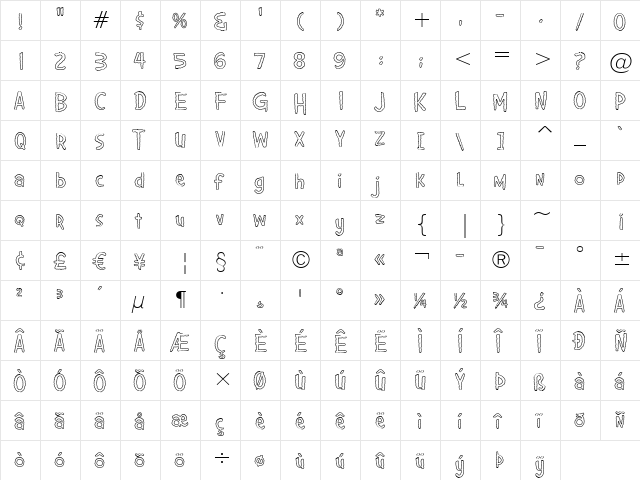
Giggles Wiggles BTN Outline Regular
Design Context for Giggles Wiggles BTN Outline Typeface
Giggles Wiggles BTN Outline is built around its visual character rather than neutral utility — its distinctive forms are designed to make an impression at display sizes.
Font Pairing: Pair with a clean neutral sans-serif for body copy to let Giggles Wiggles BTN Outline's character lead without overwhelming the composition.
Pro Tip: Treat Giggles Wiggles BTN Outline as the centrepiece of your typographic hierarchy. One strong heading set in a decorative face can carry an entire layout.